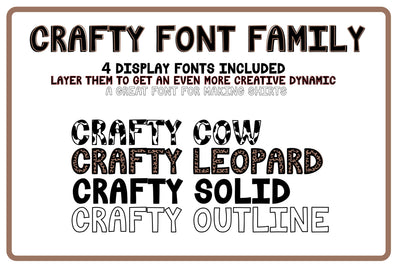
Crafty Font Family - 4 Display fonts included
This font family is hand lettered and designed to be used for t-shirts, mugs, signs and many more crafting items! These display fonts are meant for layering or mix-n-matching.
Super popular cow and leopard print will make creating trending designs a breeze!
Crafty Solid
Crafty Outline
Crafty Leopard Print
Crafty Cow Print